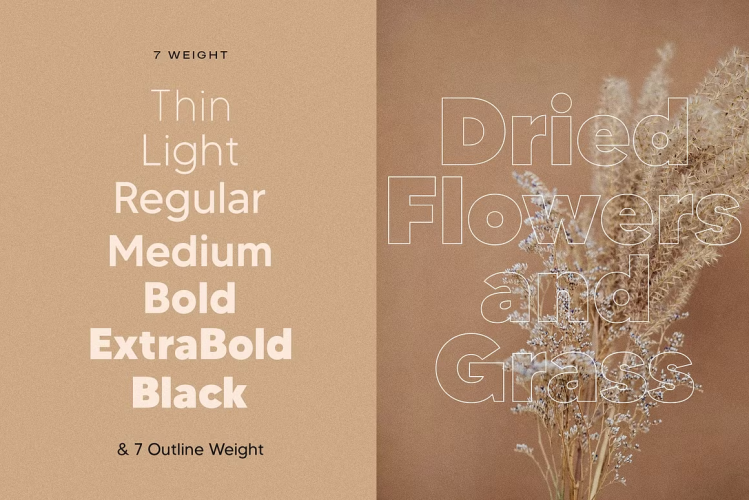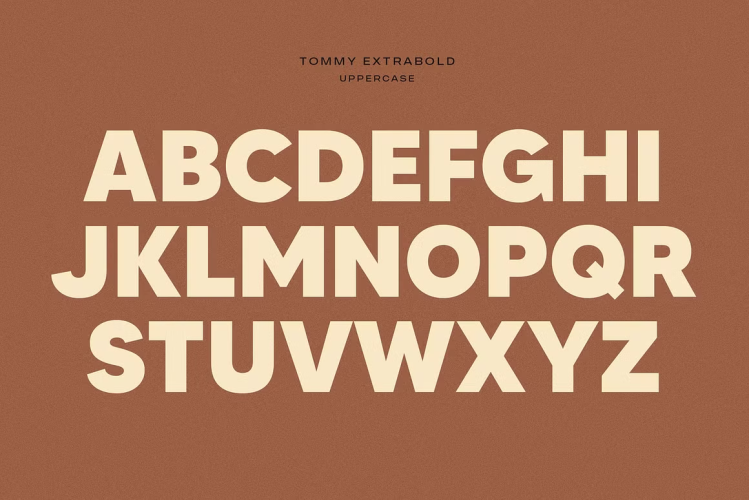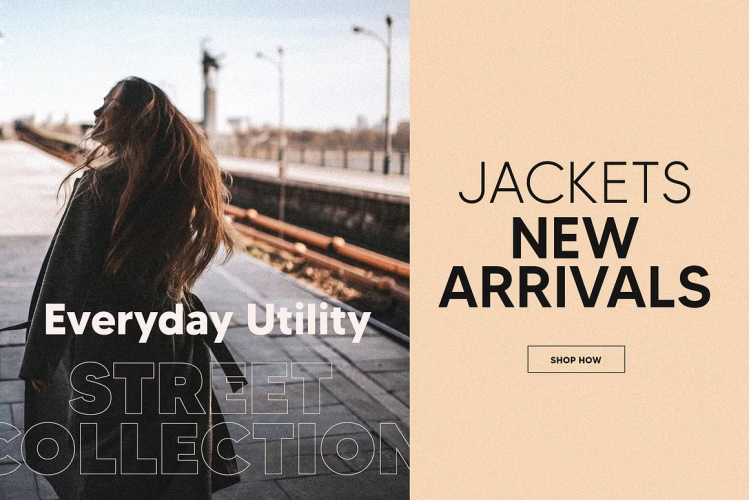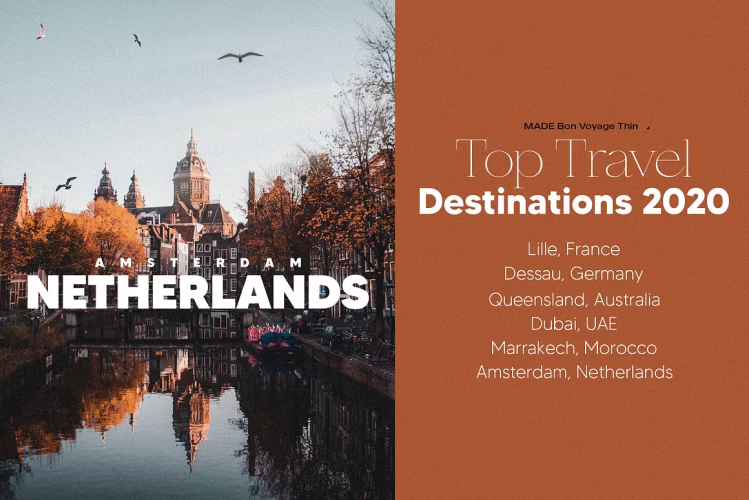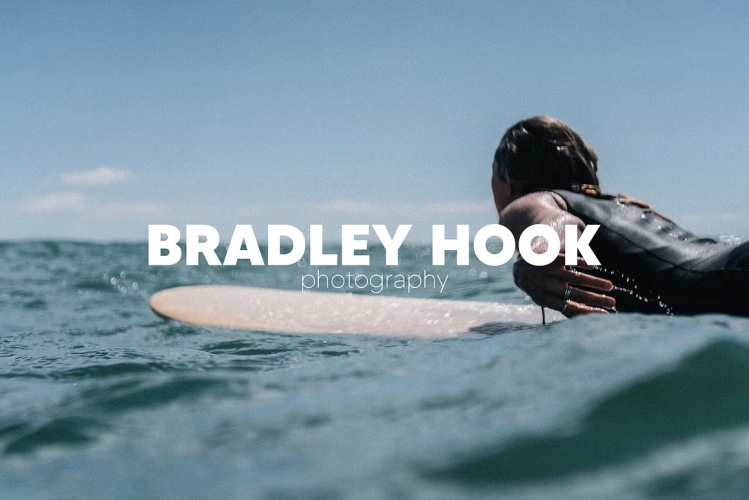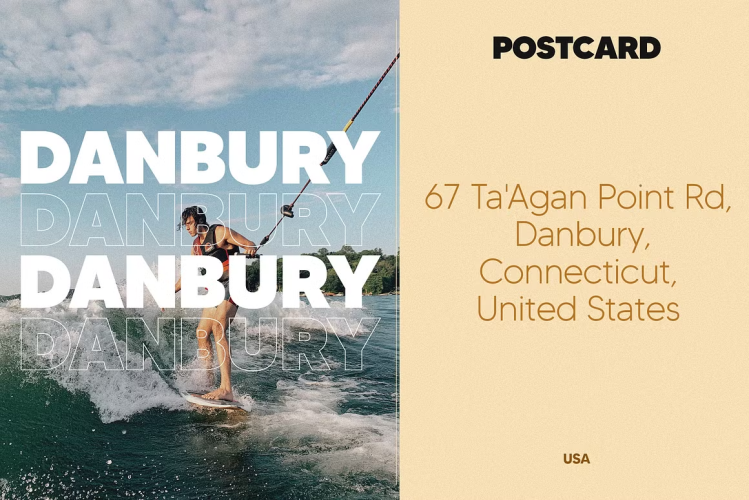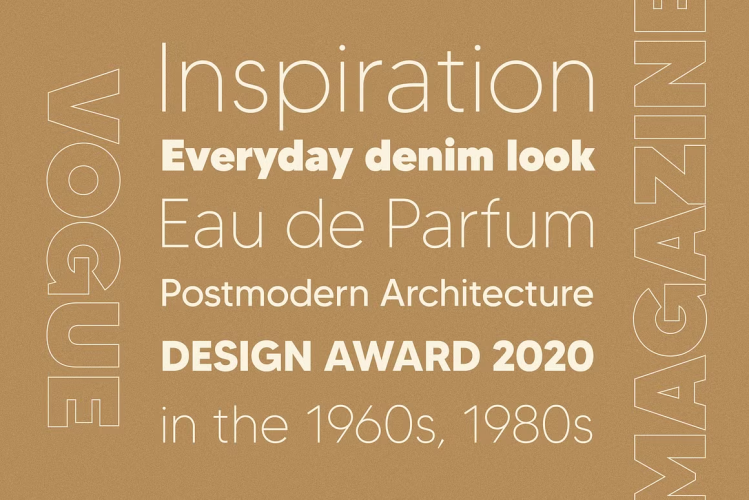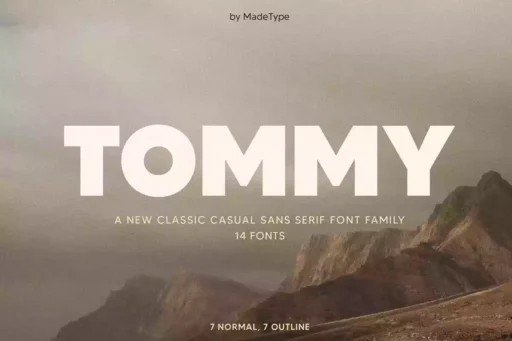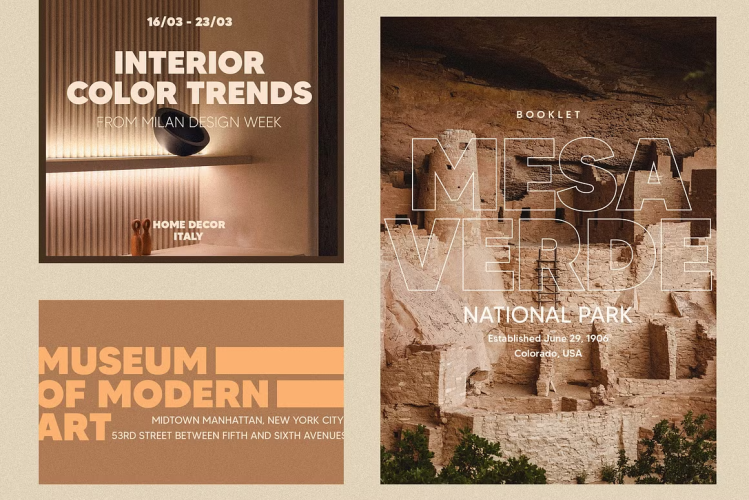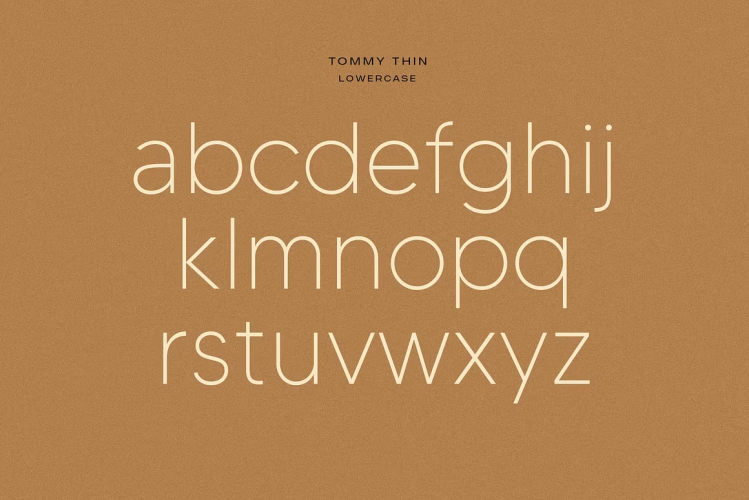
MADE TOMMY Font
Introducing MADE TOMMY, the sleek new trendy sans-serif font in the market. The main advantage of the MADE TOMMY line is its adaptable appearance, imparting both a traditional and modern look and making it suitable for different projects. This font family offers 7 everyday styles and 7 outline styles; hence, you can choose from this rich supply of designs as your creative needs demand.
Whether you are a designer in the fashion world, successfully creating compelling magazine layouts, unique logos and branding materials, or curating stunningly savvy photography compositions, MADE TOMMY will take care of you. Its sleek lines and symmetrical forms make it an excellent option for your favourite quotes or invitations, giving them an institutional look, for instance, wedding invites.
The usage of MADE TOMMY is preferably in headers, posters, and advertisements for being timeless and also in postcards and books. The multipurpose benefits of this design are carried over smoothly from the offline to the online sphere, enabling the creation of visually appealing websites and online content.
Through its complete versatility, the MADE TOMMY font delivers a modern design with the essence of a classic font family. Raise the bar of your projects by applying MADE TOMMY with its elegant simplicity and delicacy.
Where MADE TOMMY Font works best
MADE TOMMY Font stays legible at small sizes, which makes it a strong choice for navigation, buttons and dashboards in web design and app interfaces.
Clean sans serifs like MADE TOMMY Font are the default language of SaaS, fintech and product branding.
What is MADE TOMMY Font good for?